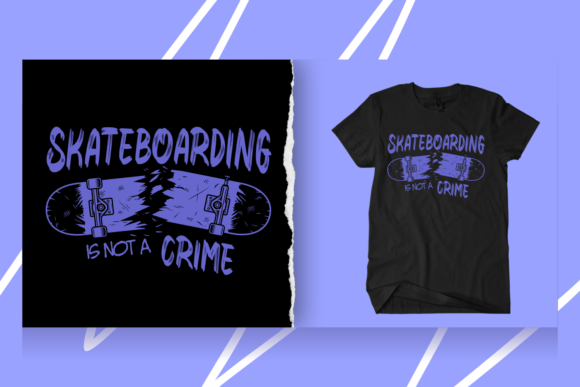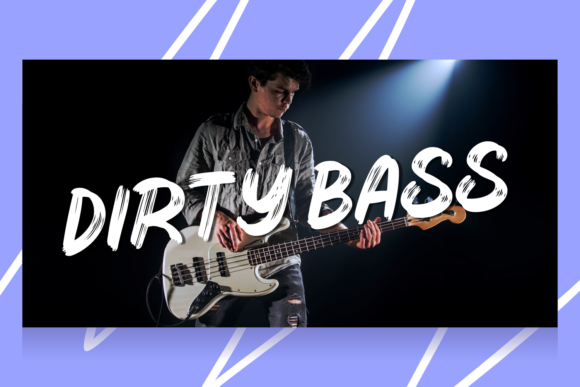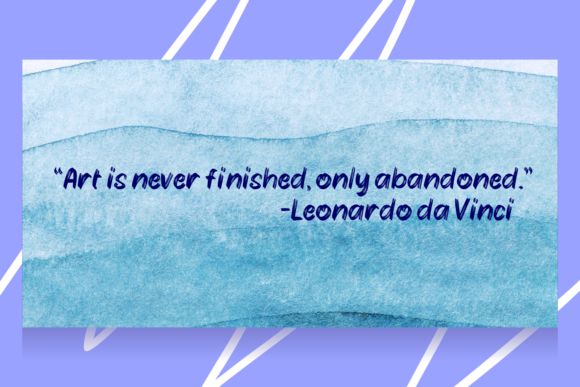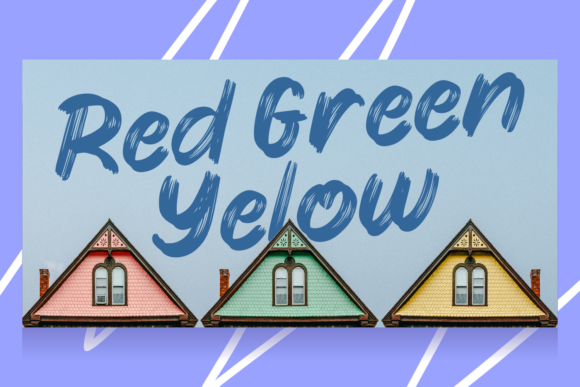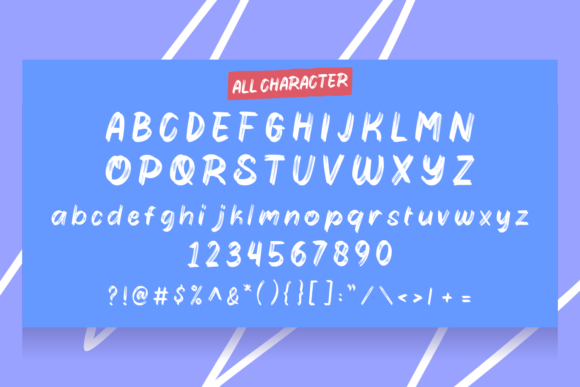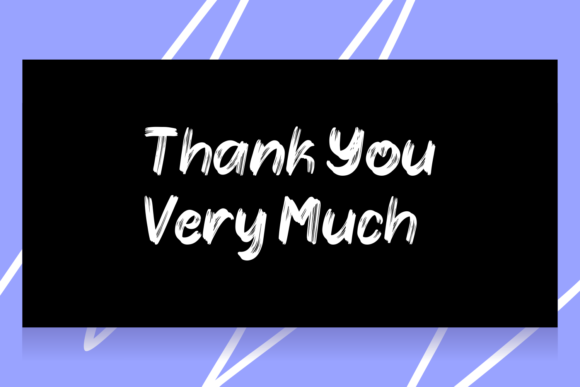
Introduction to Ralph Brush Font
Ralph Brush is a cool, trendy and brushed display font.
Key Features of Ralph Brush Font
Why Choose Ralph Brush Font?
Ralph Brush Font offers exceptional quality and versatility, making it a valuable addition to your design toolkit. Whether you’re creating for personal projects or commercial use, Ralph Brush Font delivers professional results.